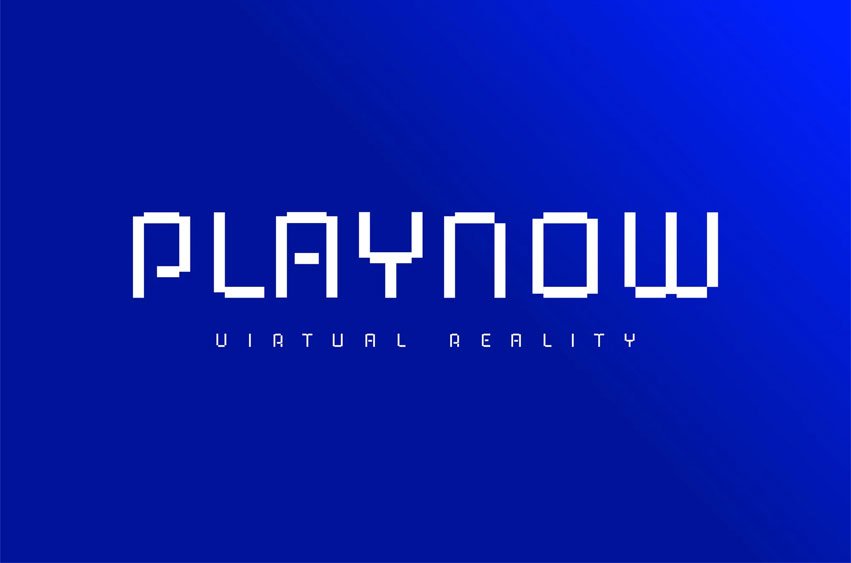
PixPixls Font embodies the sleek precision of modern technology. Its clean, unadorned lines convey a sense of innovation and efficiency, making it perfect for subjects that demand clarity and a forward-thinking aesthetic. The minimalist design ensures readability, allowing your message to take center stage on any poster.